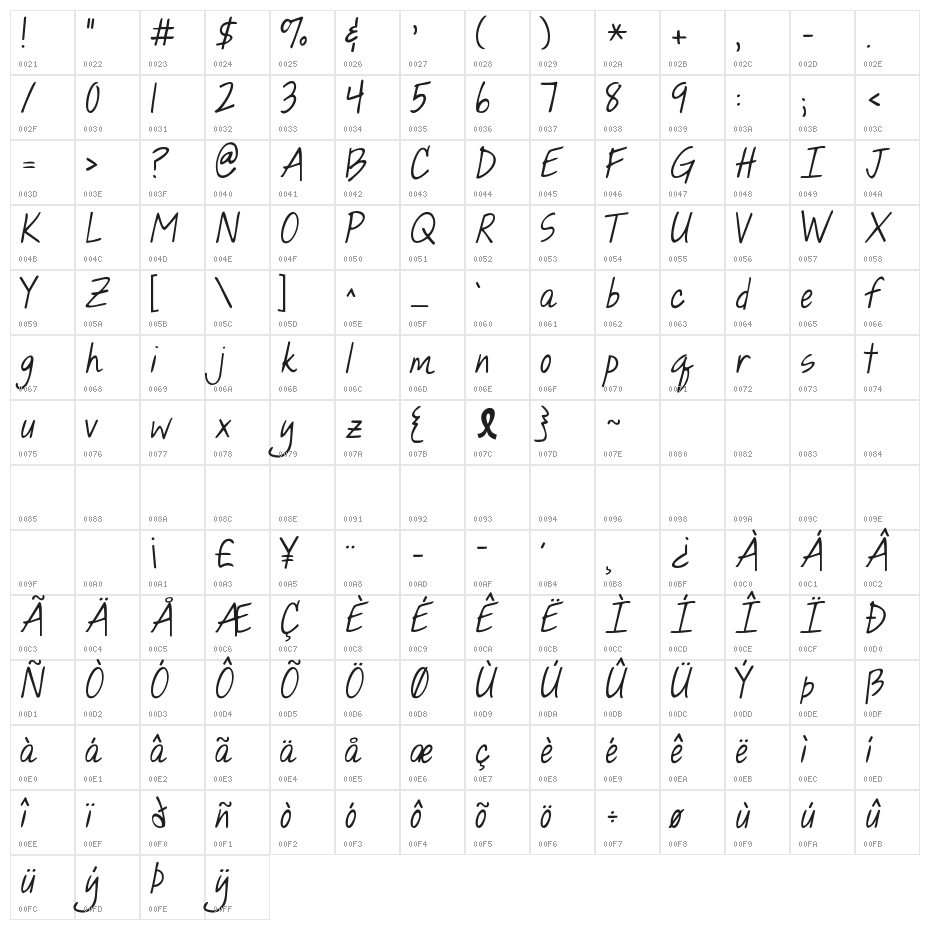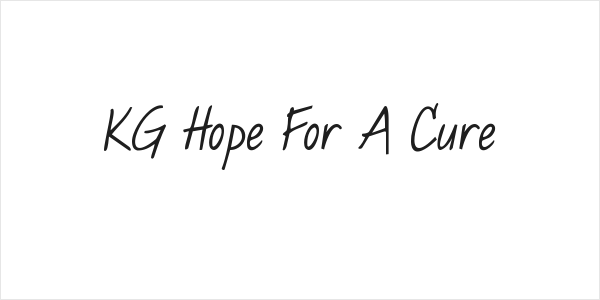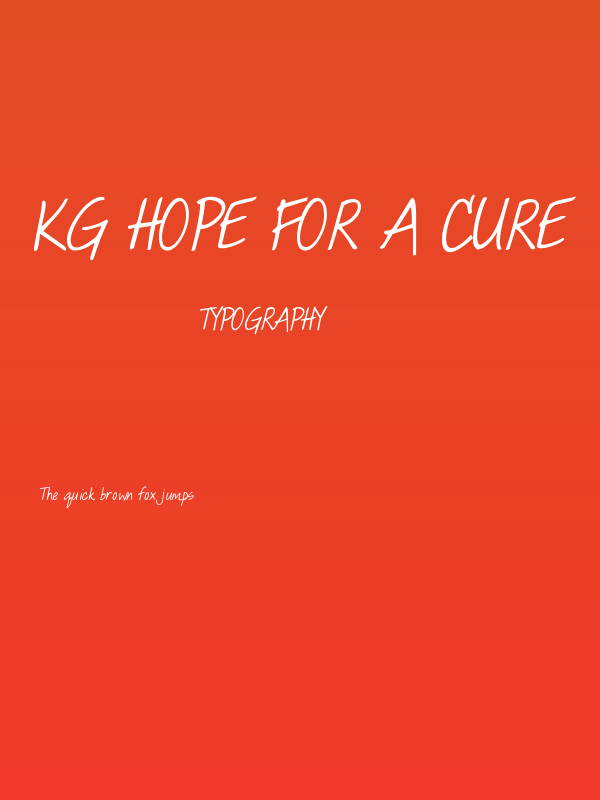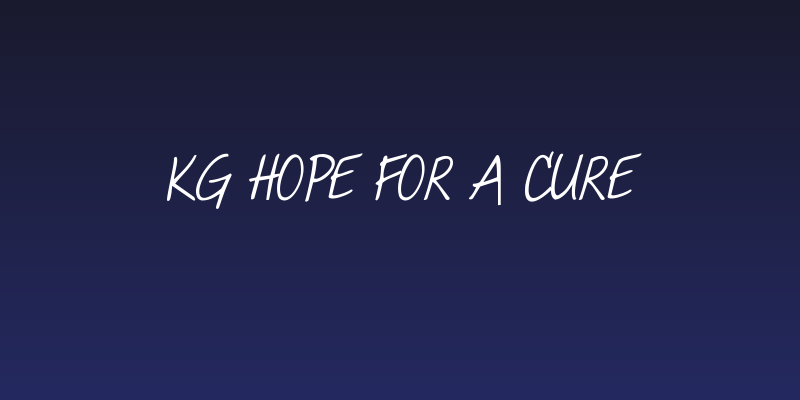
KG Hope For A Cure Font
KG Hope For A Cure Description
This font features a lively and energetic handwritten style, characterized by its fluid and slightly irregular strokes. The uppercase letters are bold and dynamic, while the lowercase letters maintain a consistent flow, adding a personal touch to the text. The numerals are clear and legible, matching the overall playful aesthetic. Special characters are well-integrated, maintaining the font's cohesive appearance. The font's informal and friendly nature makes it suitable for projects that require a personal or casual tone.
| Proposed Projects | Ideal for greeting cards, personal notes, informal invitations, and creative projects that require a personal touch. |